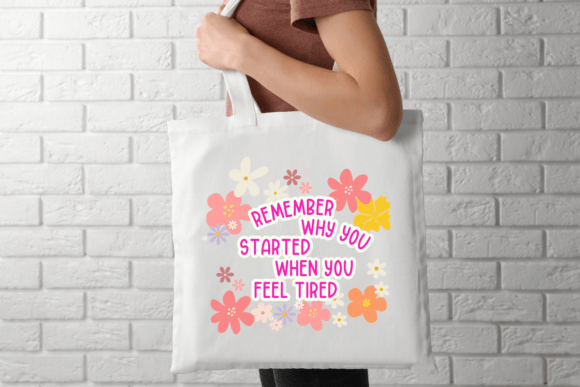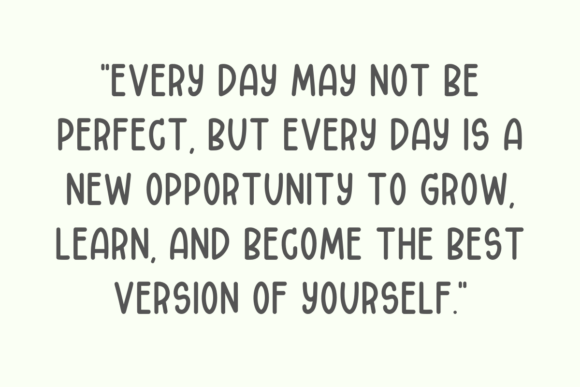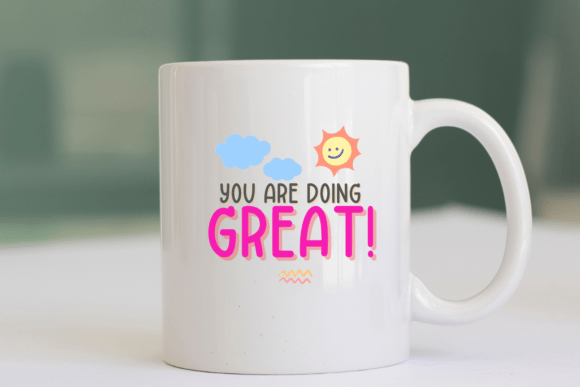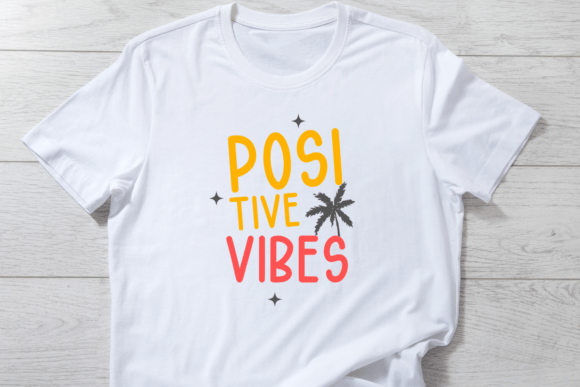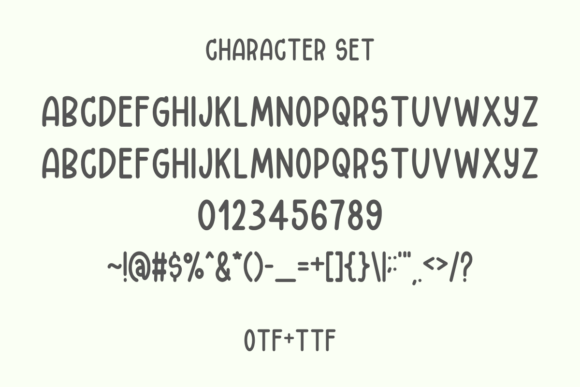
The Perfect Label for Your Creative Masterpiece
Remember that moment when you stumbled upon the perfect combination of colors, textures, and typography, and your project suddenly felt alive? It’s the moment when all the elements come together to create something truly special. For many designers, this moment is often sparked by the right font choice. And that’s where the Hoppy Garden Font comes in – a playful handwritten font that adds a touch of personality to any creative project.
With its clean strokes and casual charm, the Hoppy Garden Font is ideal for branding, DIY crafts, packaging, and anything that needs a handcrafted, friendly vibe. Whether you’re a seasoned designer or a DIY enthusiast, this font is sure to bring a warm and stylish touch to your work. Its value lies in its versatility and ability to evoke a sense of approachability and authenticity, making it a valuable addition to any designer’s toolkit.
Hoppy Garden Font Key Features
- Unique Characteristics: The font features a playful, hand-drawn design with a garden-inspired theme, adding a touch of whimsy and personality to any project.
Hoppy Garden Font Review
I recently had the chance to work with the “Hoppy Garden Font” and I must say it’s a unique addition to any project. ✨ The font’s whimsical and playful nature is perfect for creating a fun and approachable atmosphere in branding, signage, or even digital interfaces.
- The font’s irregularities and handwritten feel make it stand out from more traditional sans-serif fonts. ✨ It’s a great choice for those looking to add some personality to their design.
- The font’s legibility is surprisingly good, considering its hand-drawn appearance. It’s easy to read, even at smaller font sizes. ✨
- The font’s limited character set and lack of international support might be a concern for some designers. ⚠️ This could lead to difficulties when working on projects that require a wide range of characters or languages.
- The font’s high contrast might not be suitable for all backgrounds or color schemes. ⚠️ It’s essential to test the font with different colors to ensure it remains readable.
Overall, the “Hoppy Garden Font” is a great choice for designers looking to add some personality to their projects. While it has its limitations, its unique character and legibility make it a valuable addition to any font collection.
“Hoppy Garden Font” is ideal for:
- Gardening and outdoor design
- Children’s books and educational materials
Tips: Use “Hoppy Garden Font” to create a